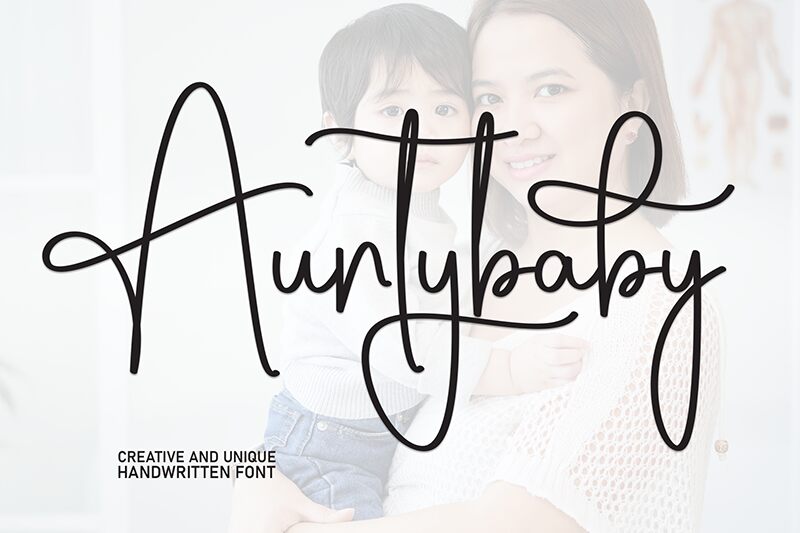
Auntybaby
Auntybaby font is a handwritten light font by Scratchones. The modern and elegant free-flowing script has a free and organic feel to it with an exceptionally casual, appealing, yet personal touch.
Auntybaby is one of those fonts that are ideal for invitations, posters, branding design projects, logo creation as well as websites. Other use cases include magazine layouts, product package designs, social media promotional posts for influencers or celebrities along with digital copies of greeting cards.